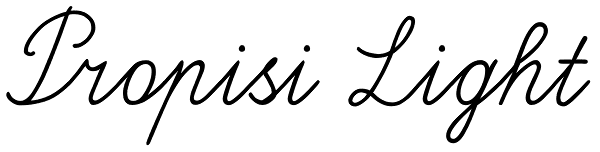
Propisi
The typeface was designed at ParaType (ParaGraph) in 1997 by Manvel Shmavonyan for Russian primary school sample writing schoolbooks. The typeface is based on script fonts presented in the book 'Rodnoy Mir' by. L.I.Tikunova. The first version of the...